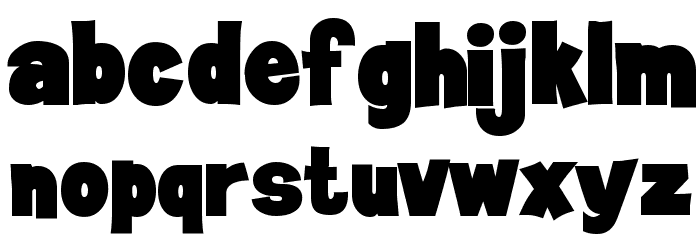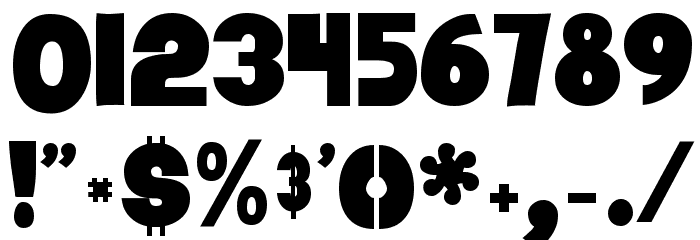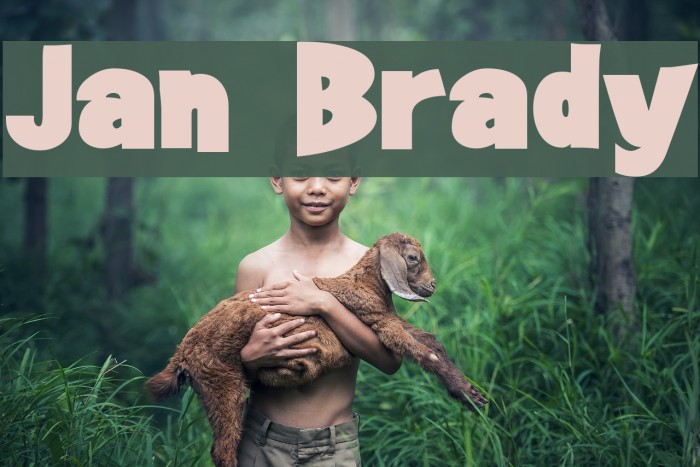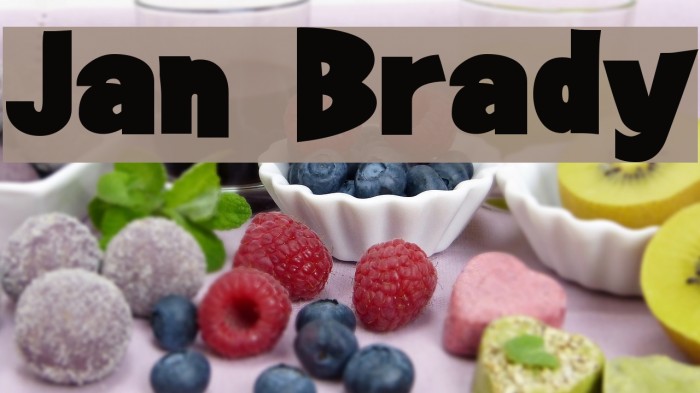
Jan Brady Font
This font features bold, playful characters with a strong presence. The letters are thick and rounded, giving them a friendly and approachable appearance. The uppercase and lowercase letters maintain a consistent weight, contributing to a cohesive look. The numbers are equally bold, ensuring they stand out in any design. Special characters are designed with the same boldness, making them suitable for attention-grabbing headlines or titles. The overall style is modern and fun, perfect for projects that require a lively and energetic feel.
A bold, playful font with rounded characters and a modern style.
- Proposed Projects: Ideal for children's books, playful branding, posters, and event invitations.